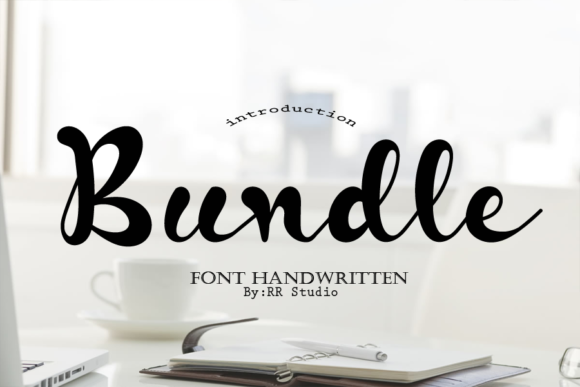
Bundle Font
About Bundle Font
Bundle is a charming and cursive handwritten font. This delicate font is sure to enhance a wide range of design concepts. It will infuse each of your projects with a sense of joy and romance!
The sweetness of Bundle makes it a delightful addition to any creative endeavor. Its cursive nature gives it a flowing, graceful aesthetic that can elevate any design. Whether you’re creating invitations, logos, or personalized gifts, Bundle can add that special touch.
One of the standout features of Bundle is its cursive handwriting style. This gives it a personal and intimate feel, making it perfect for projects that require a personal touch. It’s as if someone took a pen and lovingly crafted each letter, adding a unique charm to your designs.
When it comes to design ideas, Bundle is incredibly versatile. Its gentle and flowing nature makes it suitable for a wide range of applications. From wedding invitations to logo design, from greeting cards to social media posts, Bundle can make your designs stand out.
Bundle is not just a font; it’s a way to add a joyful touch to your projects. Its cursive style and sweet nature infuse a sense of happiness into your designs. This can make your projects more appealing and engaging, whether you’re designing for yourself or for clients.
Moreover, Bundle can add a romantic touch to your designs. Its cursive style and delicate nature make it perfect for projects that require a sense of romance. Whether you’re designing wedding invitations or creating a romantic quote for a loved one, Bundle can help you convey the right emotion.
In conclusion, Bundle is a sweet, cursive, and handwritten font that is perfect for a variety of design ideas. Its gentle nature and ability to add a joyful and romantic touch to projects make it a valuable asset for any designer. Whether you’re a professional designer or a hobbyist, Bundle is a font worth considering for your next project. So, why not give Bundle a try and see how it can enhance your designs? You might be surprised at the difference it can make!